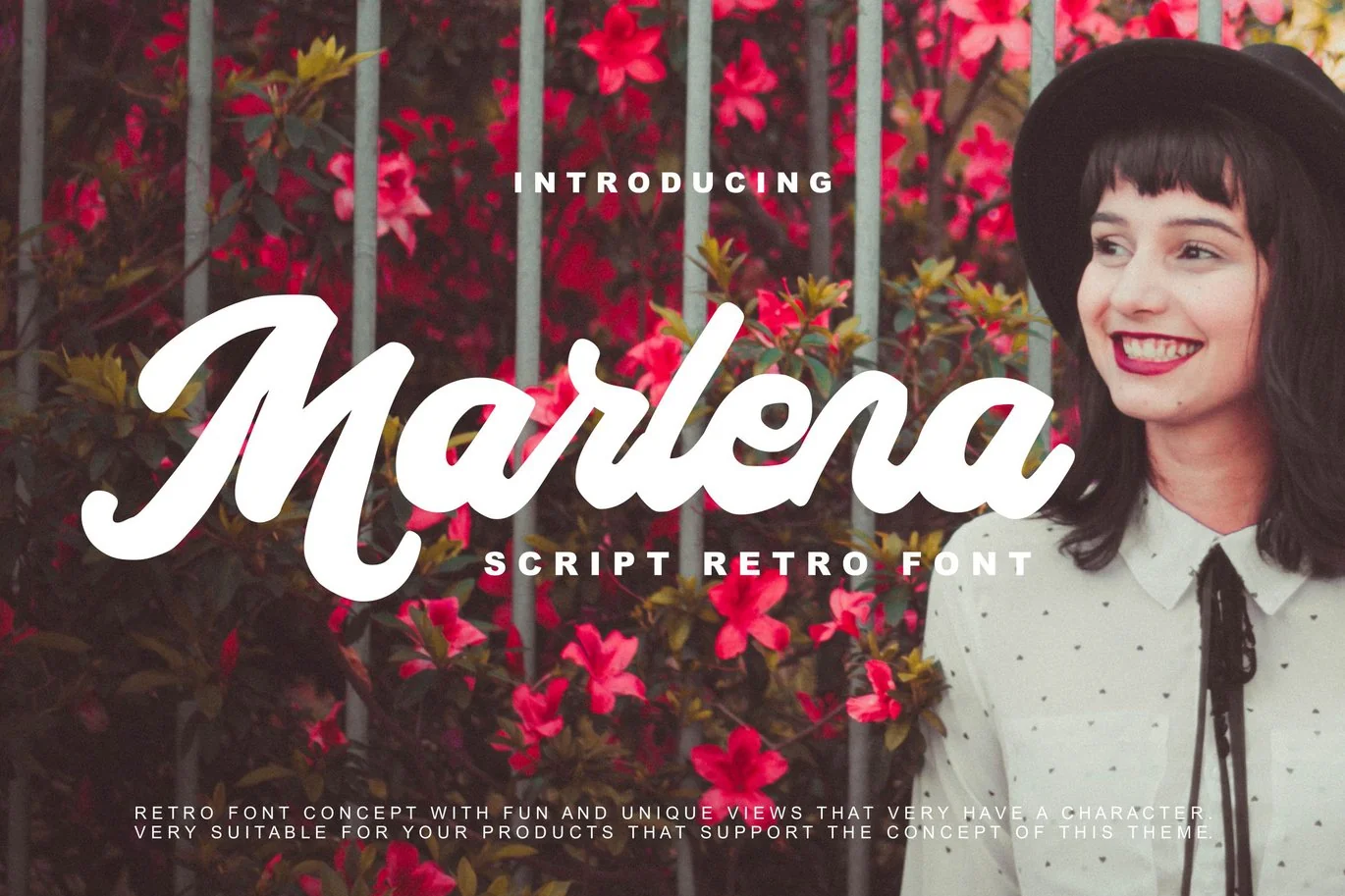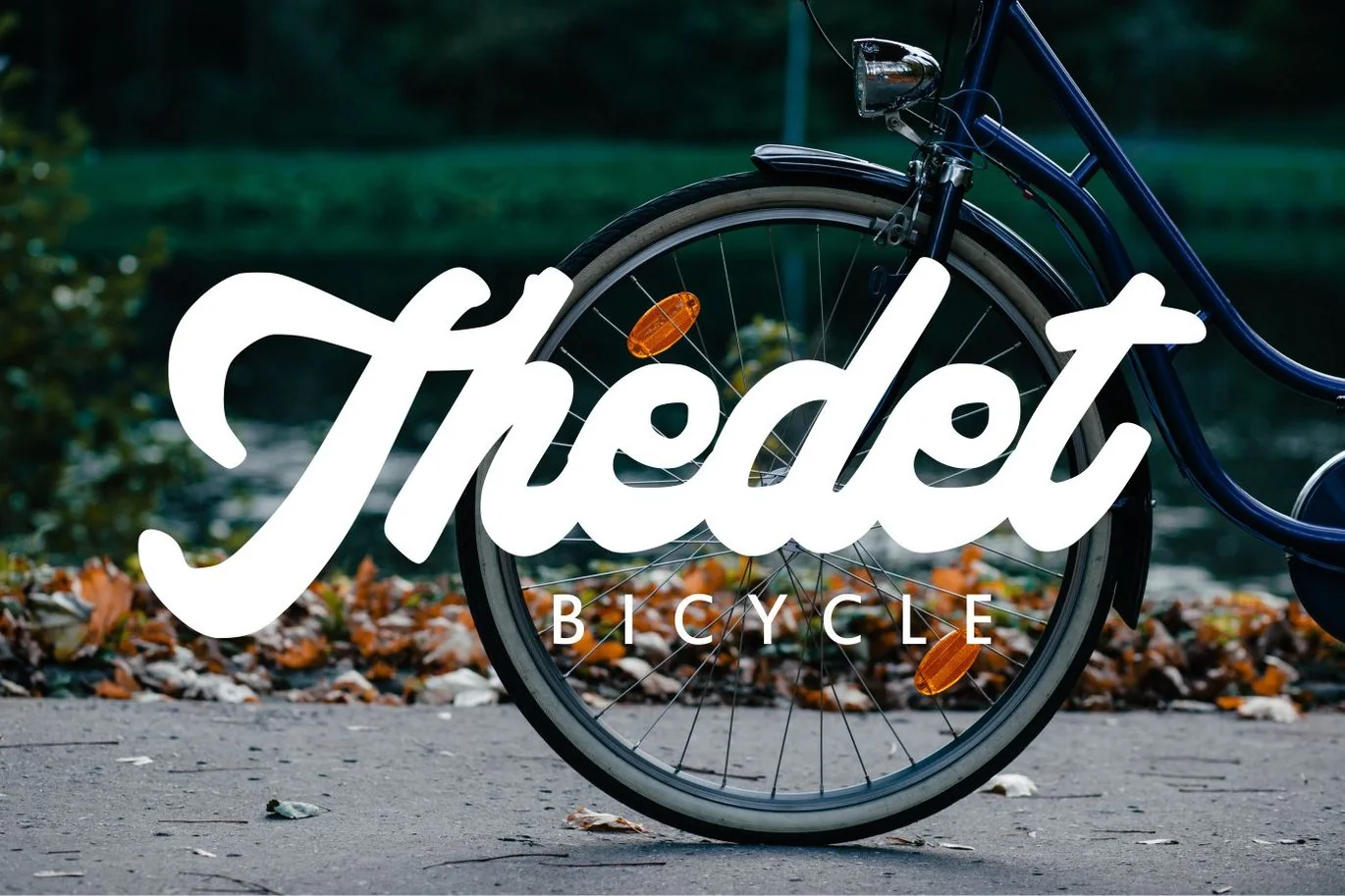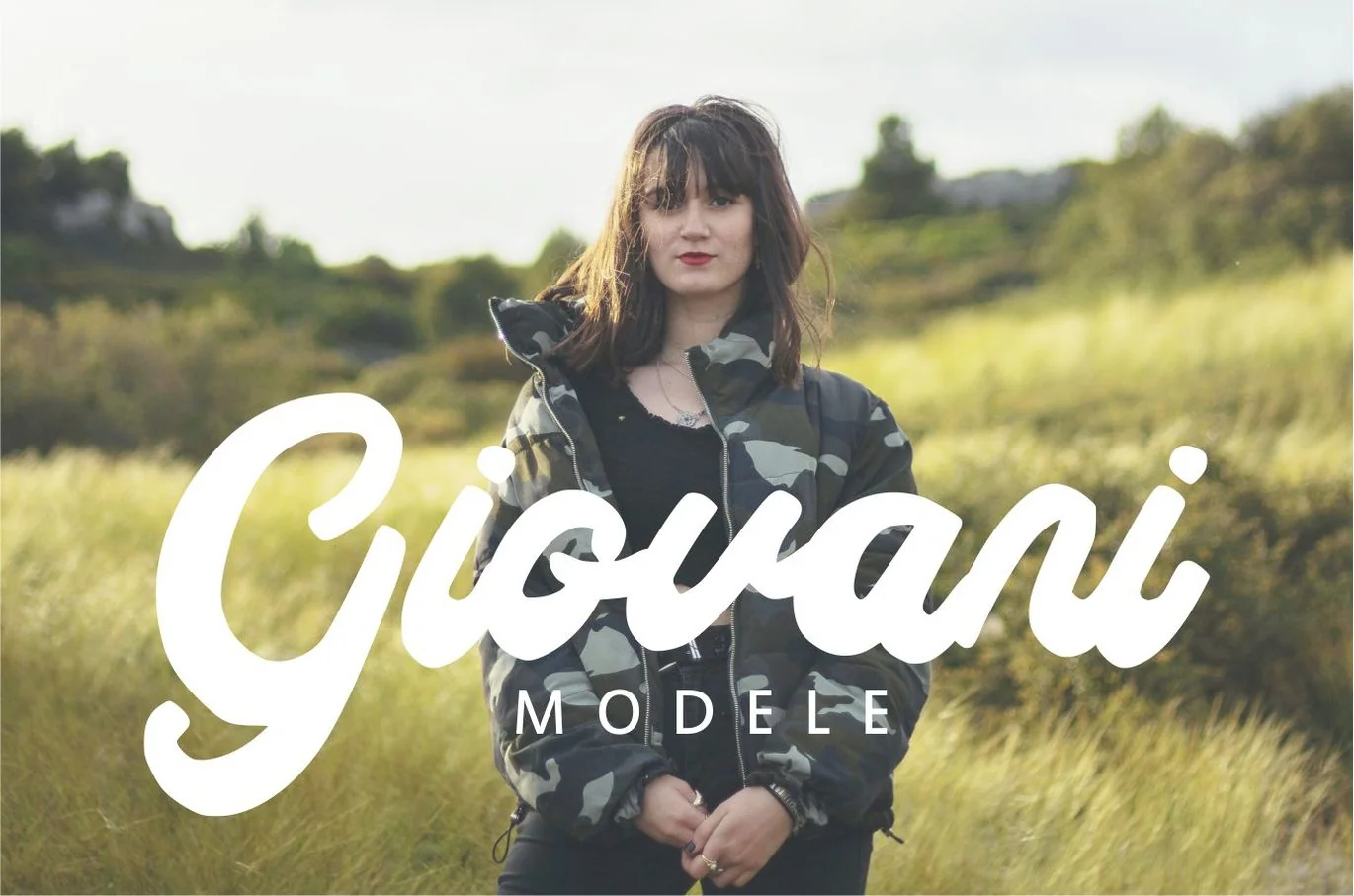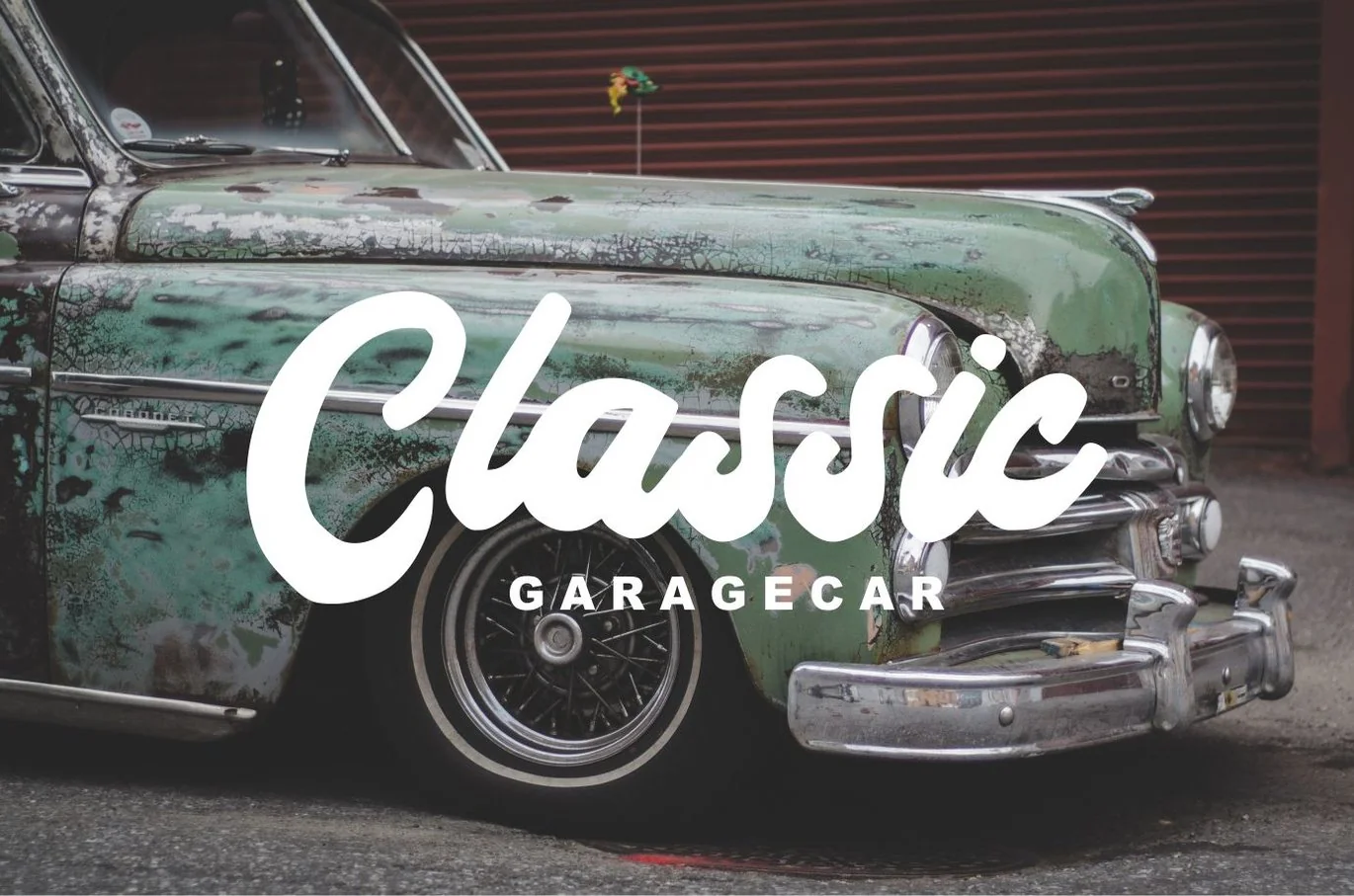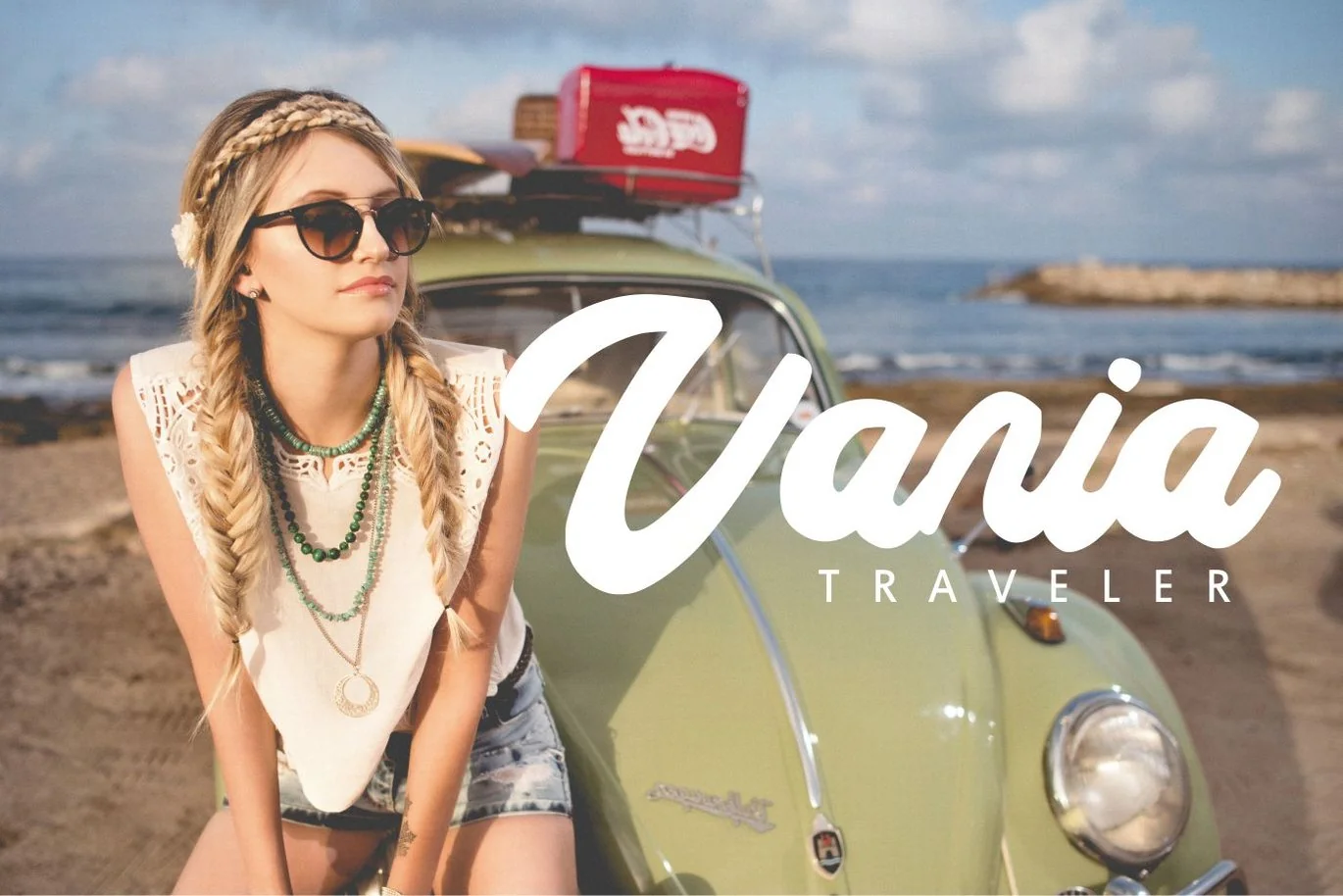
Marlena – Script Retro Font
Marlena – Script Retro Font with a calligraphy style, So beautiful on invitation like greeting cards, branding materials, business cards, quotes, posters, and more!
The alternative characters were divided into several features such as Stylistic Sets, Stylistic Alternates, Contextual Alternate, SWASH and Ligature.